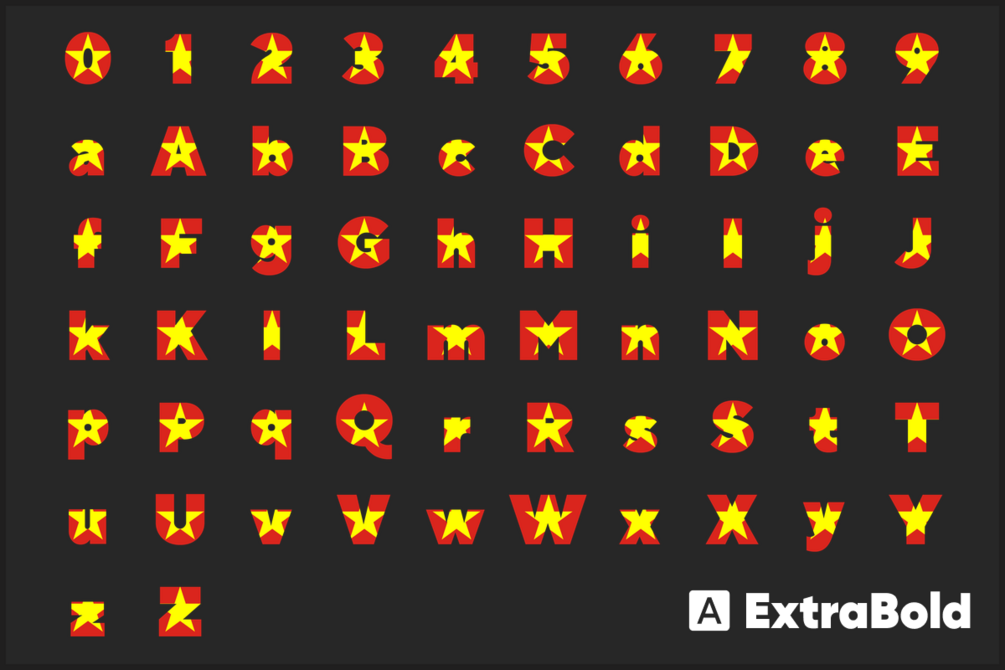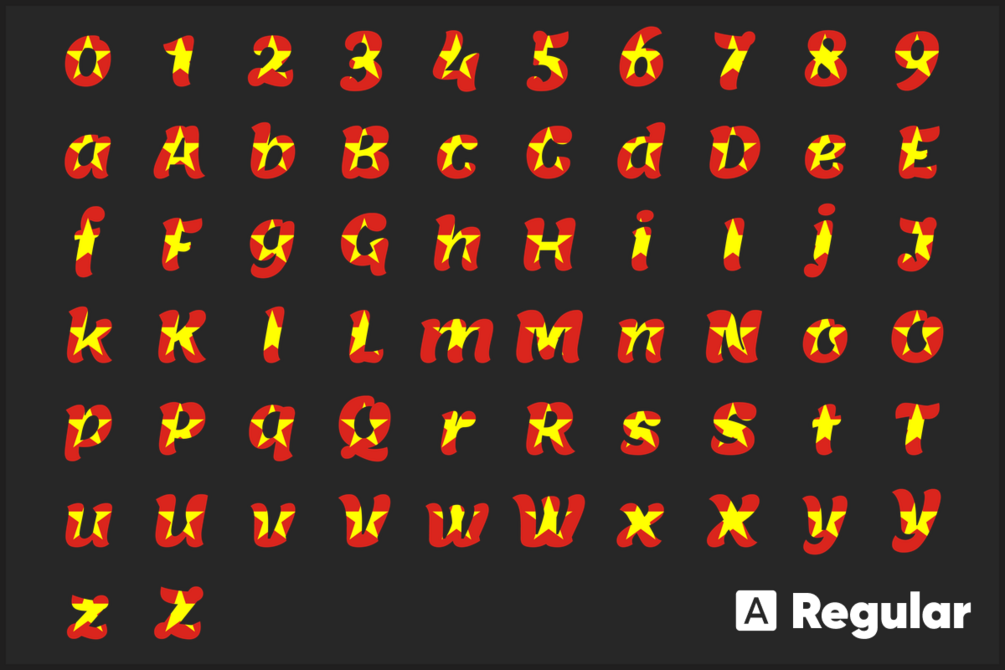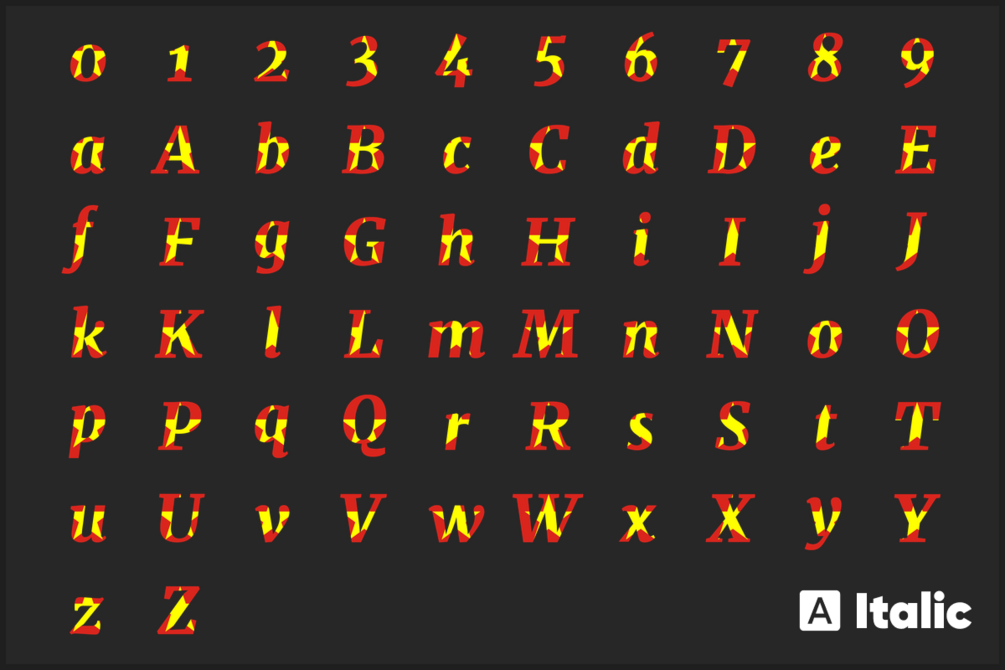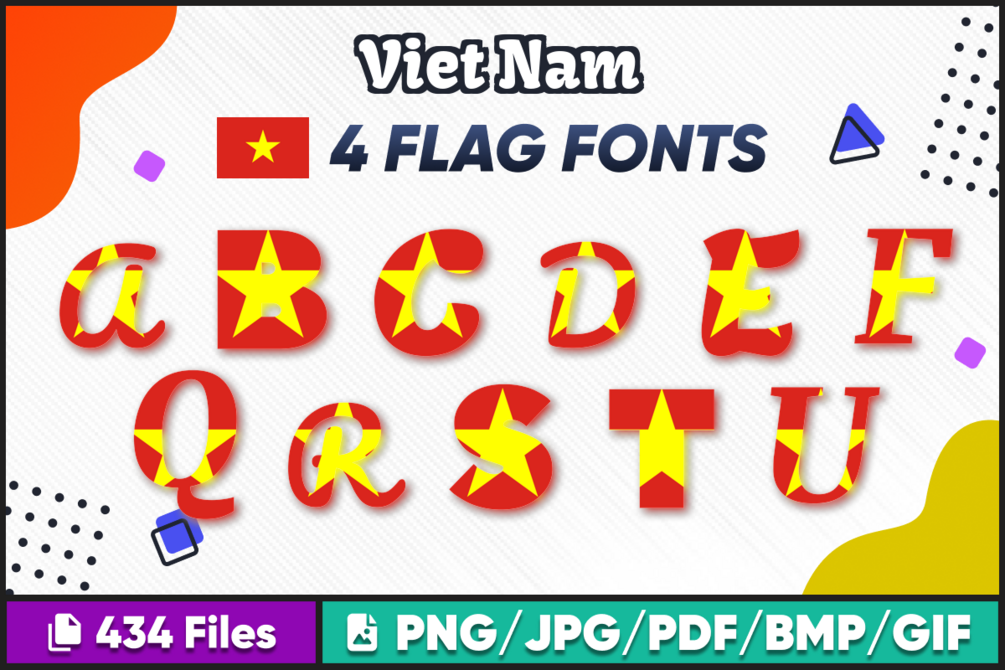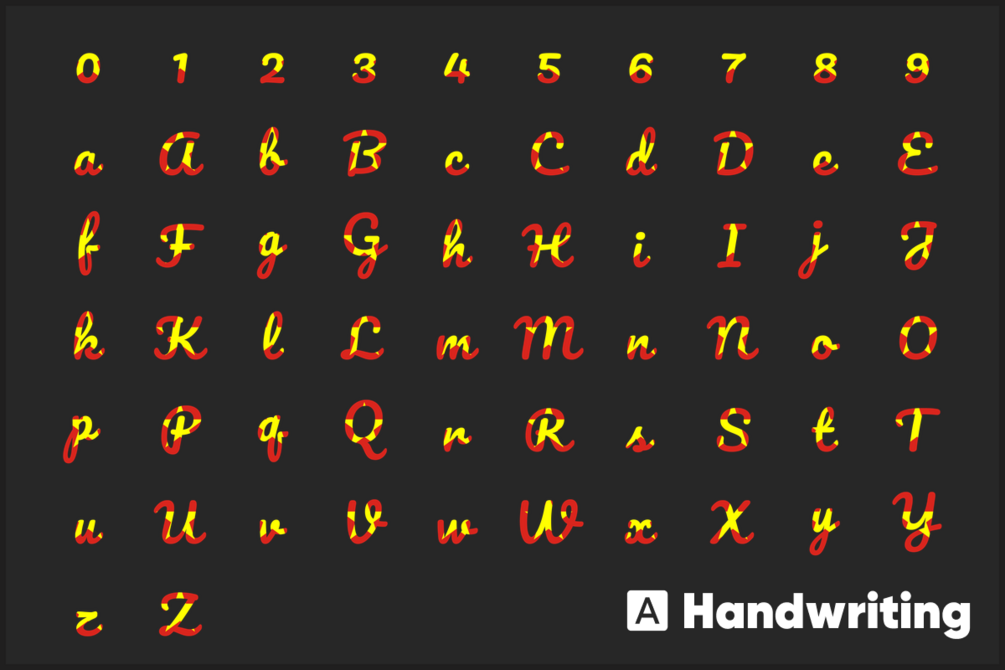
Viet Nam Font free download
Viet Nam Font free download Flag Font, Letters. These stunning country font images are perfect for all your crafting needs! Use Viet Nam Font free download flag PNG images for t-shirt designs, scrapbooking, photo albums, card making, mug designs, prints, and anything else you can think of.